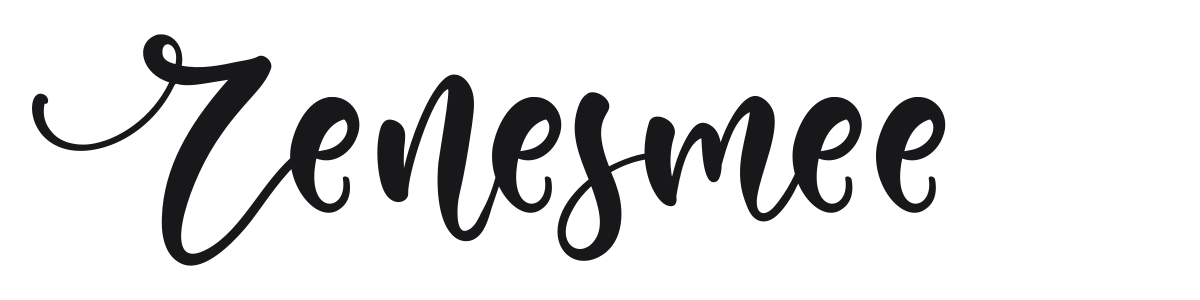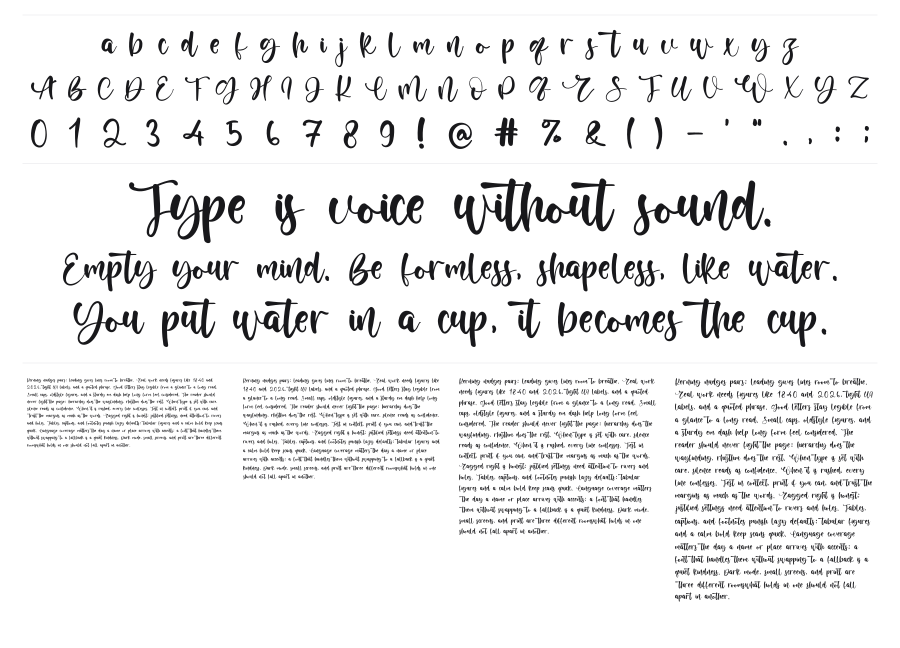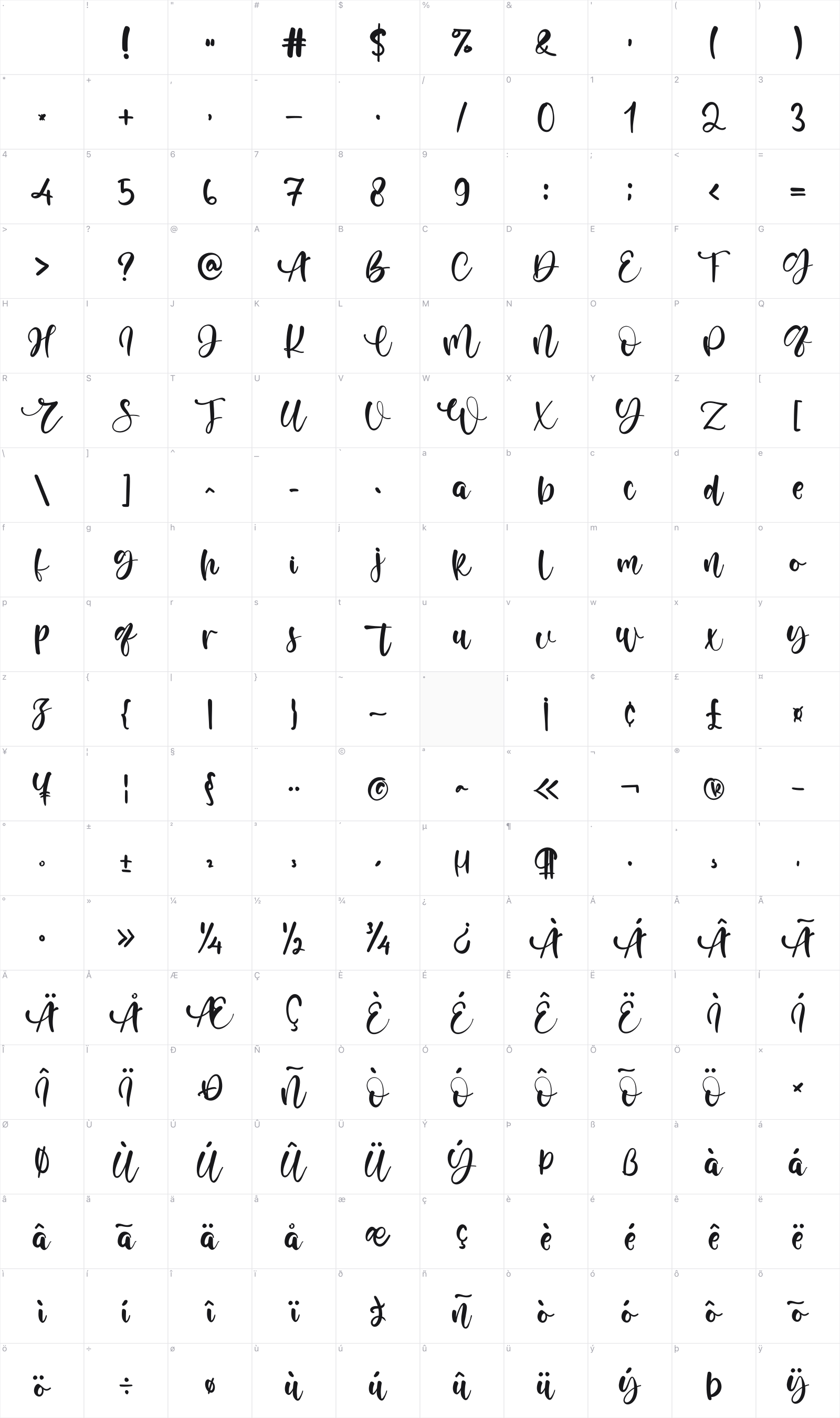
Renesmee
Renesmee is a contemporary brush script with flowing connections, bouncy baseline variation, and expressive stroke contrast. The hand-painted quality feels effortlessly natural without tipping into rough or grunge territory. It works across branding, packaging, and social media graphics where a warm, handcrafted personality is the goal.